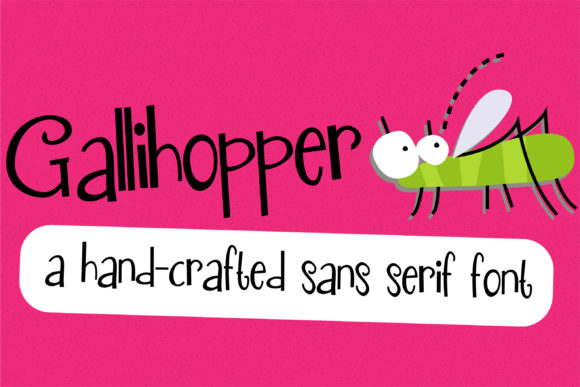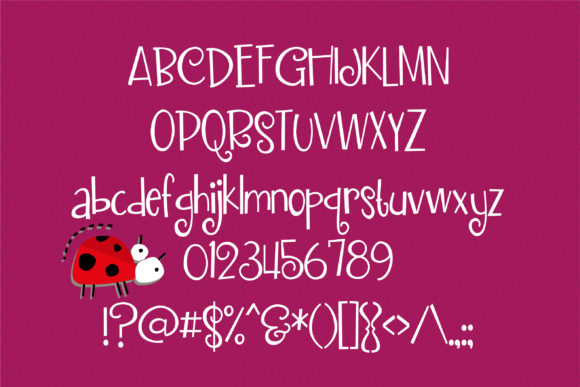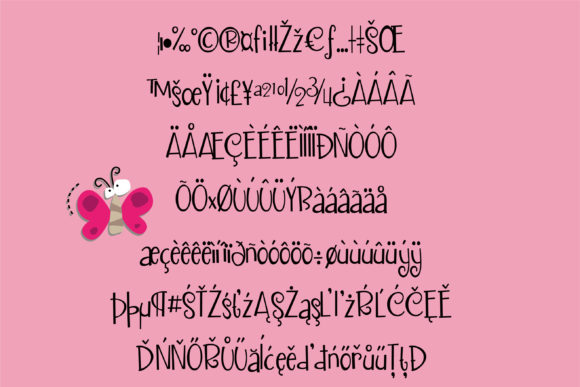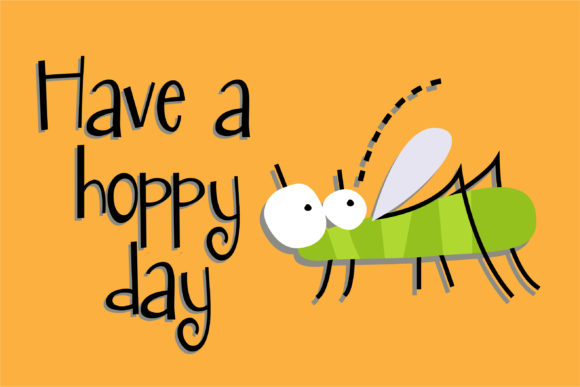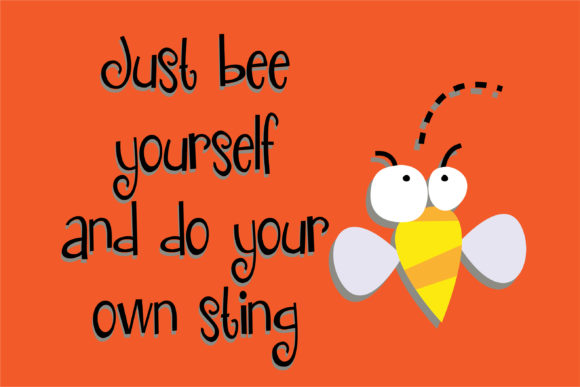
HomeScript FontsGallihopper Font Script Fonts Gallihopper Font FacebookXPinterestWhatsApp Gallihopper Font Poster 2 Gallihopper Font Poster 3 Gallihopper Font Poster 4 Gallihopper Font Poster 5 About Gallihopper Font This casual handwritten print has a youthful feel to it. Check out her sister serif font: The Gallivant. DOWNLOAD ON CREATIVE FABRICAThis font is sold and delivered by Creative Fabrica. Font Canyon may earn a commission if you buy through this link. People also explored The Mythos Font Sagittary Font Mirella Font Satilas Signature Font Automoto Boneny Font Remember Font Moluska Font Shadila Font 329 0 TagsGallihopper Font Previous articleHangry FontNext articleGallivant Font LEAVE A REPLY Cancel reply Comment: Please enter your comment! Name:* Please enter your name here Email:* You have entered an incorrect email address! Please enter your email address here Website: Save my name, email, and website in this browser for the next time I comment. Personal Use Free Hair Thinned Personal Use Free Read more about this font Lixdu Personal Use Free Read more about this font Helsinki Personal Use Free Read more about this font Ashay Personal Use Free Read more about this font BLOG Exploring Font Trends Shaping Communication in the Digital Era Fonts, like all design elements, are subject to trends. They play a crucial role in communicating a brand's personality,... Best Fonts for YouTube Videos: Make Your Thumbnails Stand Out Transform Your Website: Elevate Your Typography with 7 Best Web Font Generators The 10 Best Handwriting Fonts to Add Personality to Your Designs